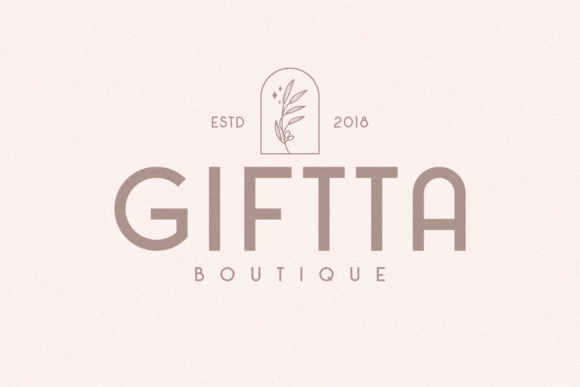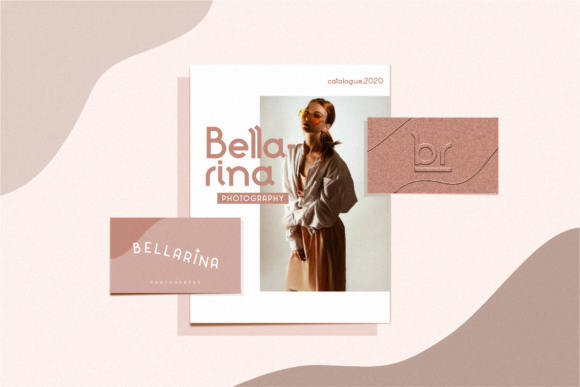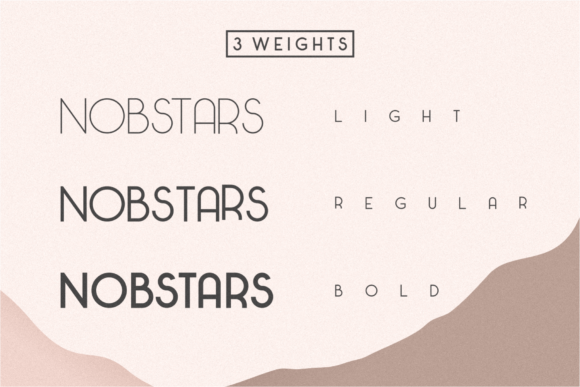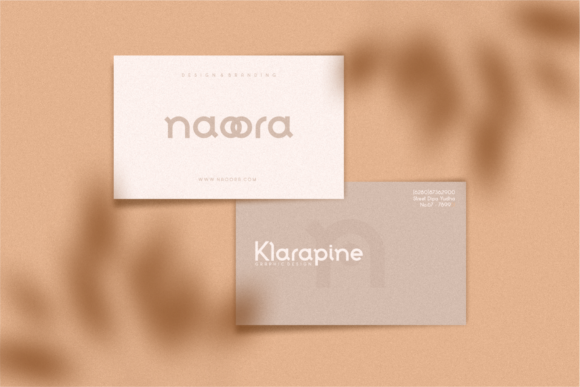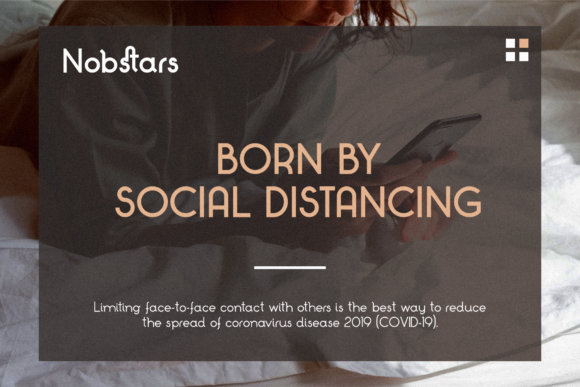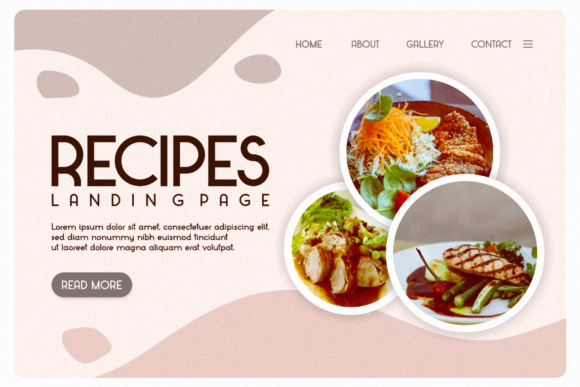
Introduction to Nobstars Font
As a designer, there’s nothing quite like the thrill of discovering a new font that perfectly captures the essence of your creative vision. For me, that moment came when I stumbled upon the Nobstars Font – a simple yet elegant sans serif typeface that has since become a staple in my design arsenal.
What sets Nobstars Font apart is its clean and beautiful arrangement of letters, making it a versatile design resource that excels in both formal and non-formal projects. Whether you’re working on a high-quality marketing campaign or a creative project that requires a transparent background, Nobstars Font is sure to deliver. And the best part? It’s available for free download, making it an invaluable resource for designers of all levels.
With its high-quality design and effortless style, Nobstars Font is an essential tool for any designer looking to elevate their creative project to the next level. In this article, we’ll take a closer look at what makes Nobstars Font so special and how you can incorporate it into your next design project.
Nobstars Font
- Features a transparent background, making it suitable for use on both light and dark backgrounds.
- Designed with a unique and stylish aesthetic, making it perfect for adding a touch of elegance to any design project.
- Perfect for use in graphic design, digital art, and other creative projects where a unique and stylish font is required.
Honest Review: Nobstars Font
As a designer, I’m always on the lookout for high-quality design resources to elevate my creative projects. I recently came across the Nobstars Font, and I have to say, it’s been a game-changer for my designs.
Here’s what works well: ✨ The font is incredibly versatile and can be used for a wide range of design applications, from logos to brochures. It’s also available for free download, which is a major plus. The transparent background option is a nice touch, making it easy to integrate into various design elements.
However, there are some limitations: ⚠️ The font is a bit limited in terms of style and variation, which may not appeal to designers looking for something more unique. Additionally, the font size and spacing can be a bit finicky, requiring some manual adjustments to get it just right.
Overall, I’m really impressed with the Nobstars Font. It’s a solid addition to any designer’s toolkit, especially for those working on a budget. With its high-quality design and transparent background option, it’s a great resource for any creative project.
Nobstars Font
The Nobstars Font is a high-quality design resource perfect for any creative project. You can download it for free, providing a transparent background that allows for seamless integration into your design.
Tips for Getting the Most Out of Nobstars Font
To get the most out of the Nobstars Font, use it in combination with other design elements to create a visually appealing design. Experiment with different font sizes and colors to find the perfect balance for your project.
The Nobstars Font is suitable for a variety of creative projects, including:
- Social media graphics and advertisements
- Wedding invitations and event materials